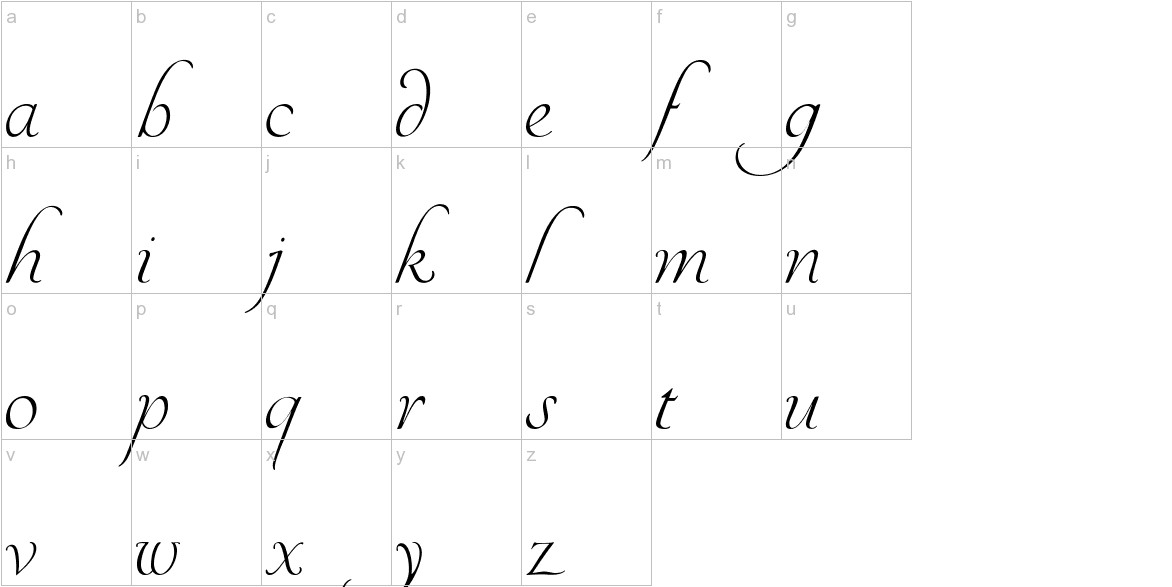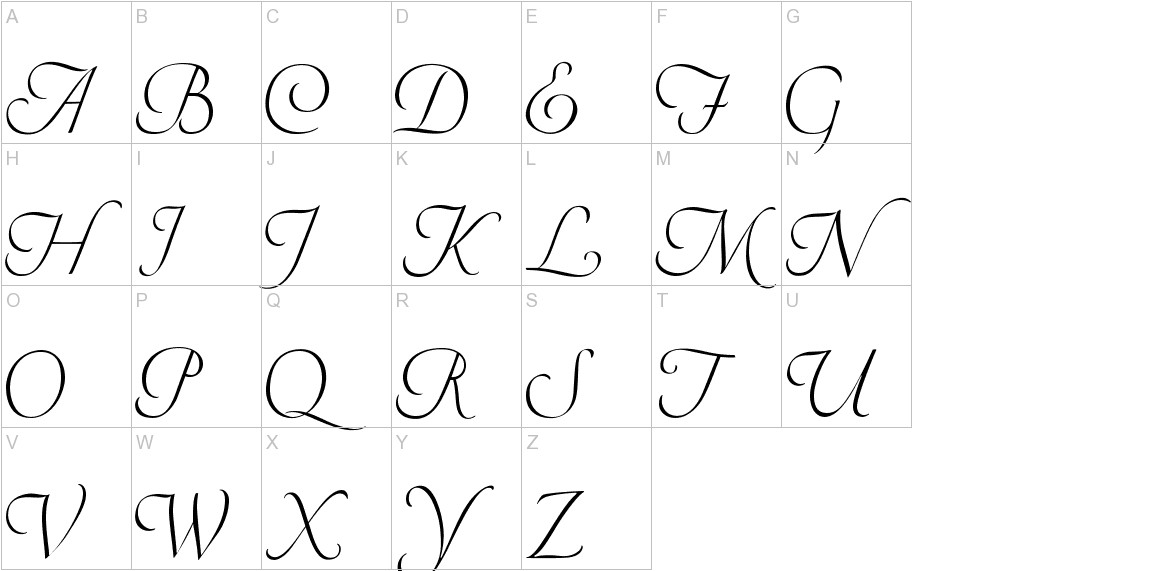
YoureInvited
Traced from the 1916 book LETTERING by Thomas Wood Stevens. The typeface is designed by Lawrence Rosa. Refining by Mario Arturo. This font is free for non-commercial use and donationware for commercial use. Make a donation through PayPal my account there is: . Please, donate in Euros IF this happens to be your local currency.